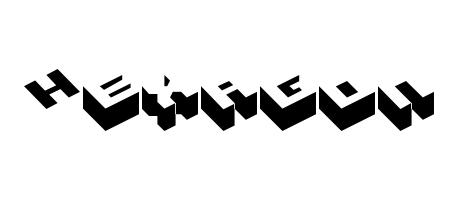
Hexagon
By Fenotype
Hexagon: A bold, geometric sans-serif font. Each letter appears as a three-dimensional block, slightly skewed to create a dynamic, almost kinetic feel. The strong, solid forms suggest stability and modernity, while the angled perspective adds a playful, energetic touch. The overall effect is simultaneously structured and vibrant.